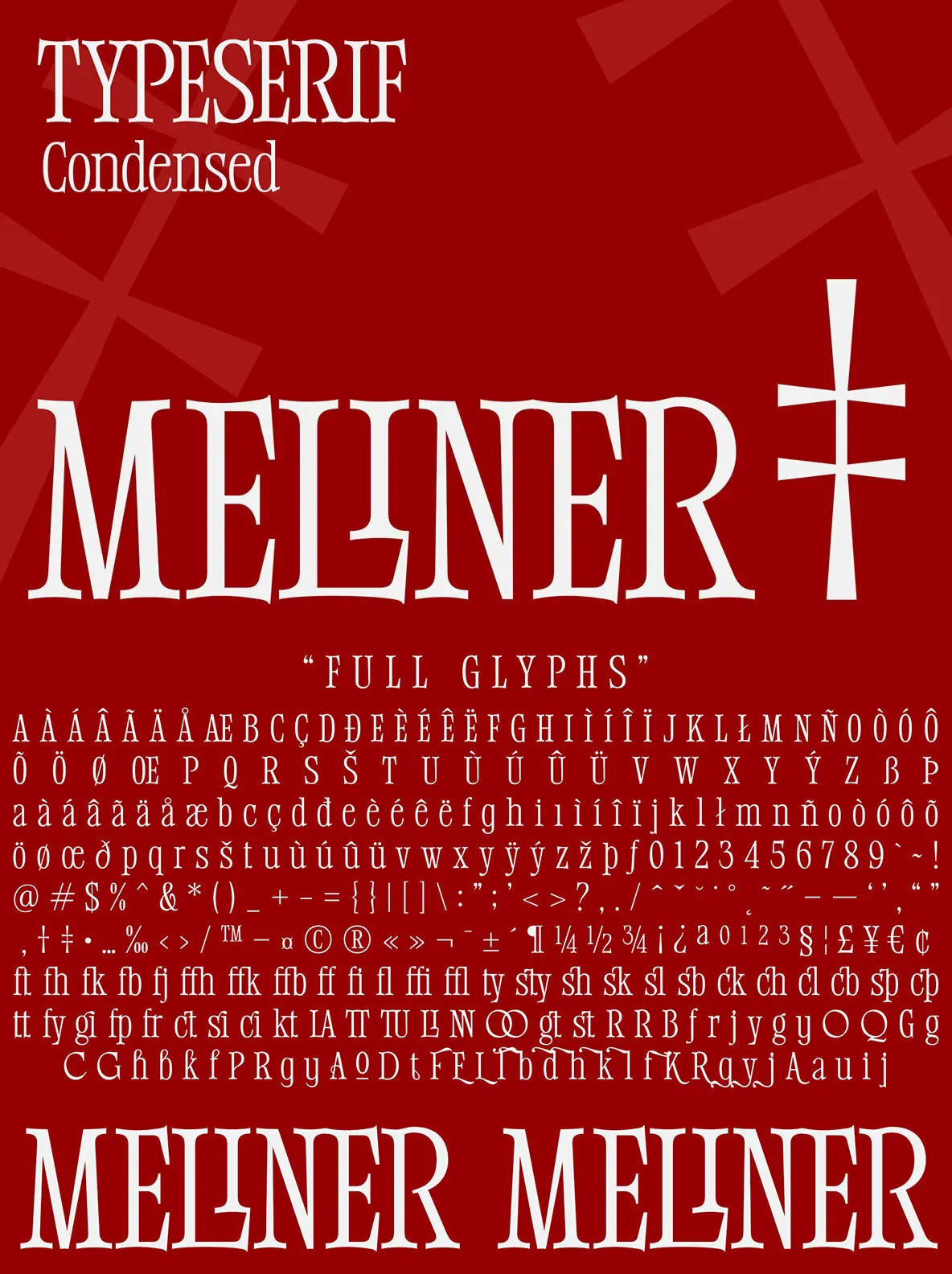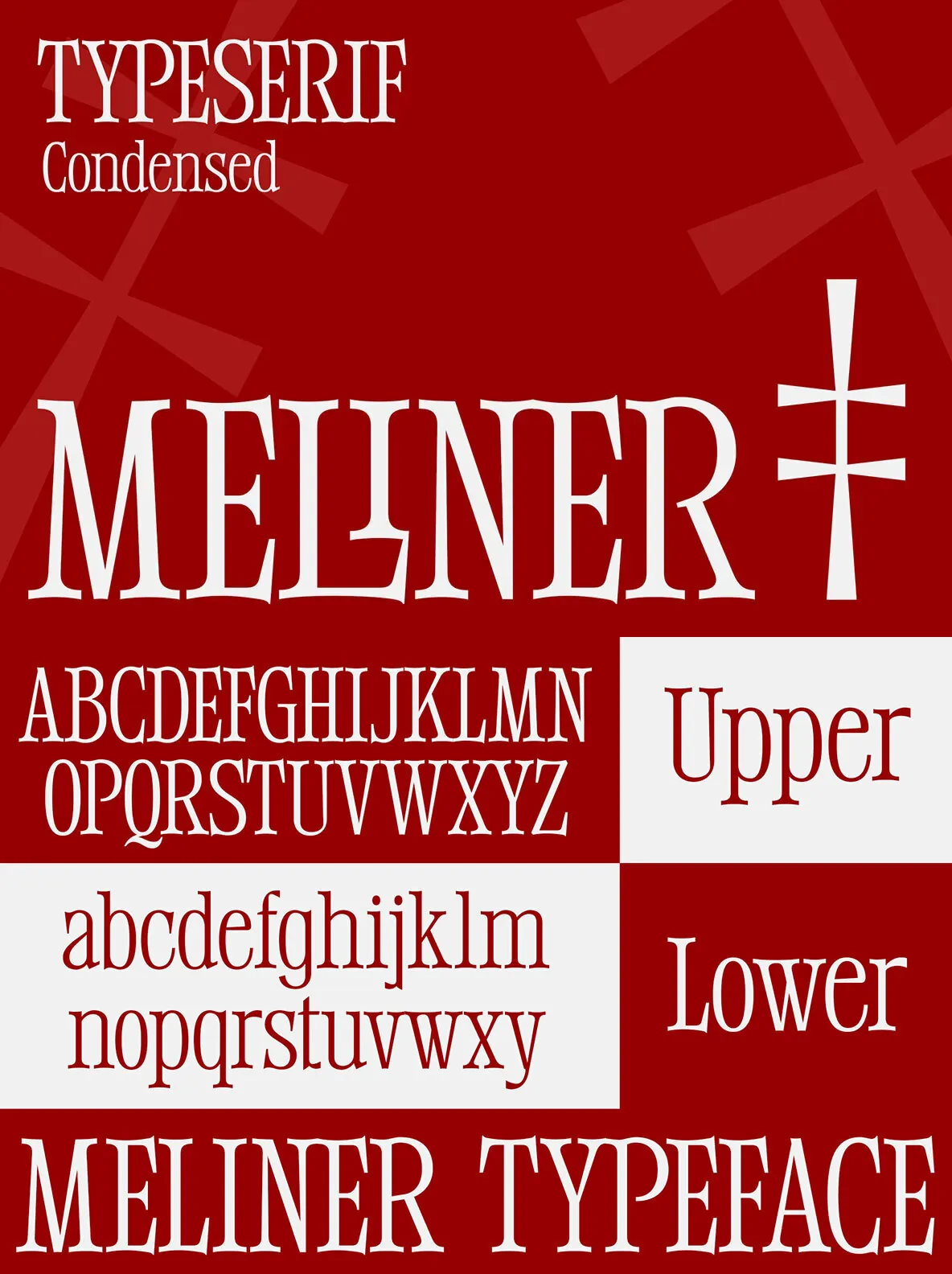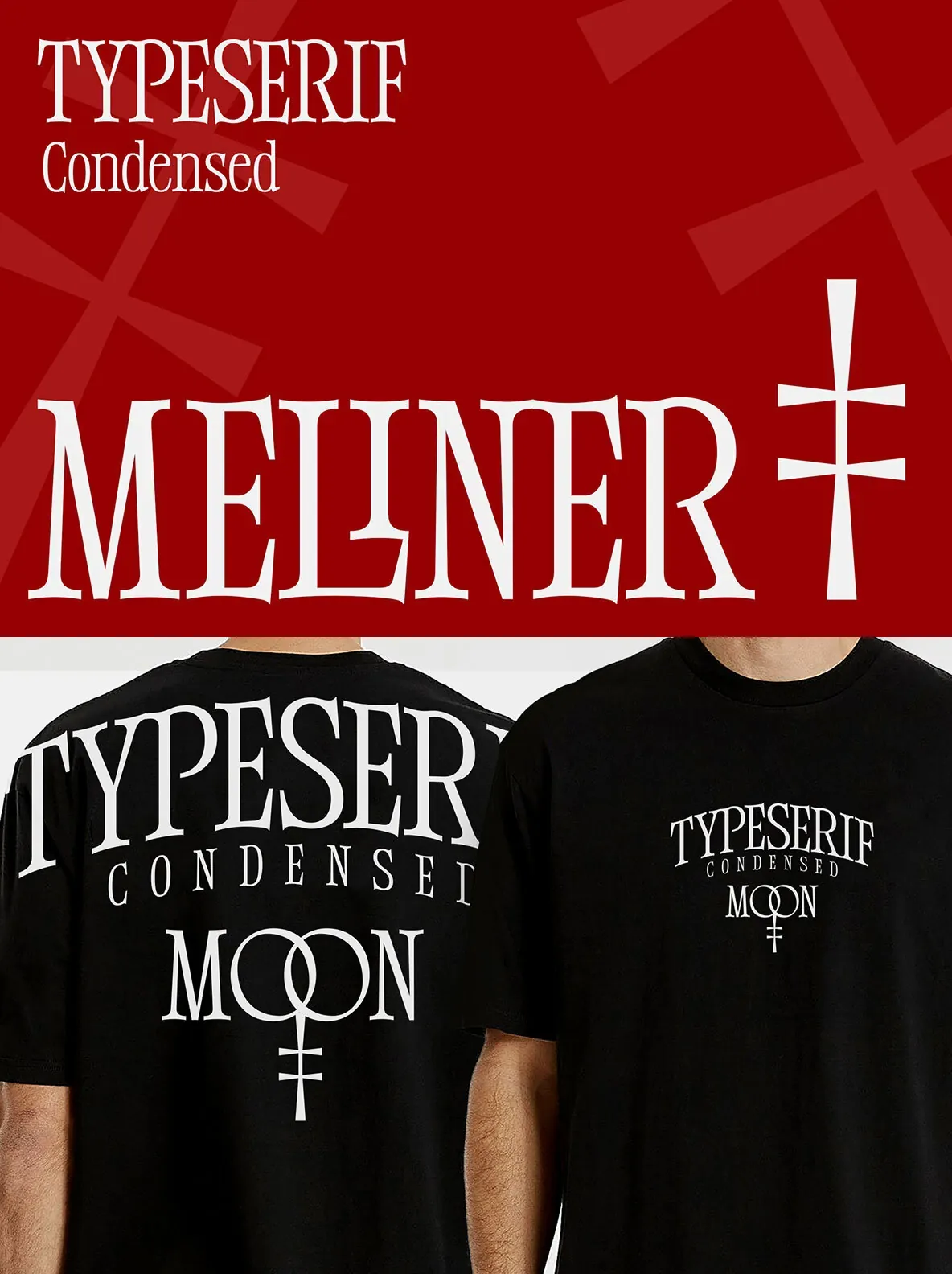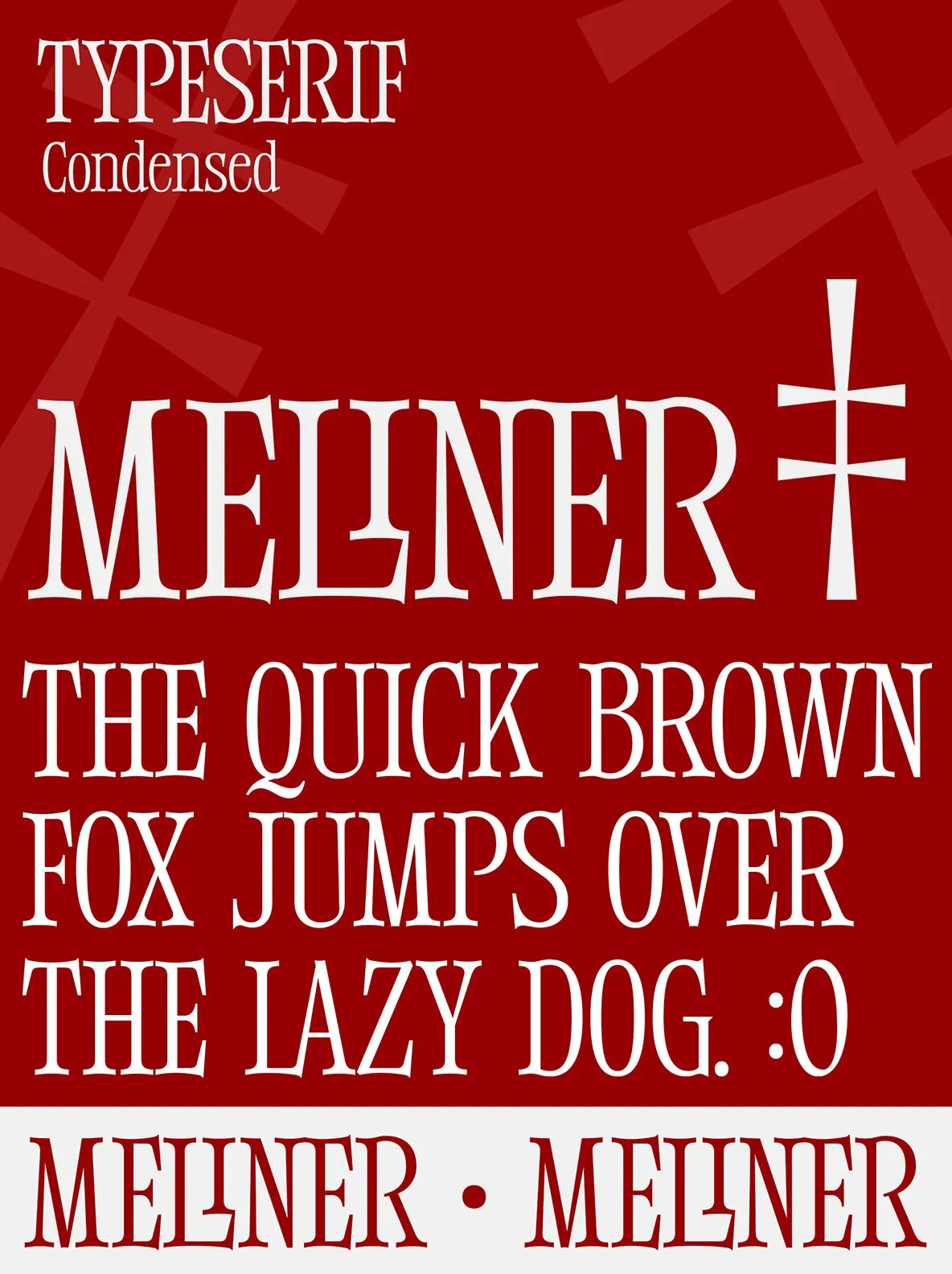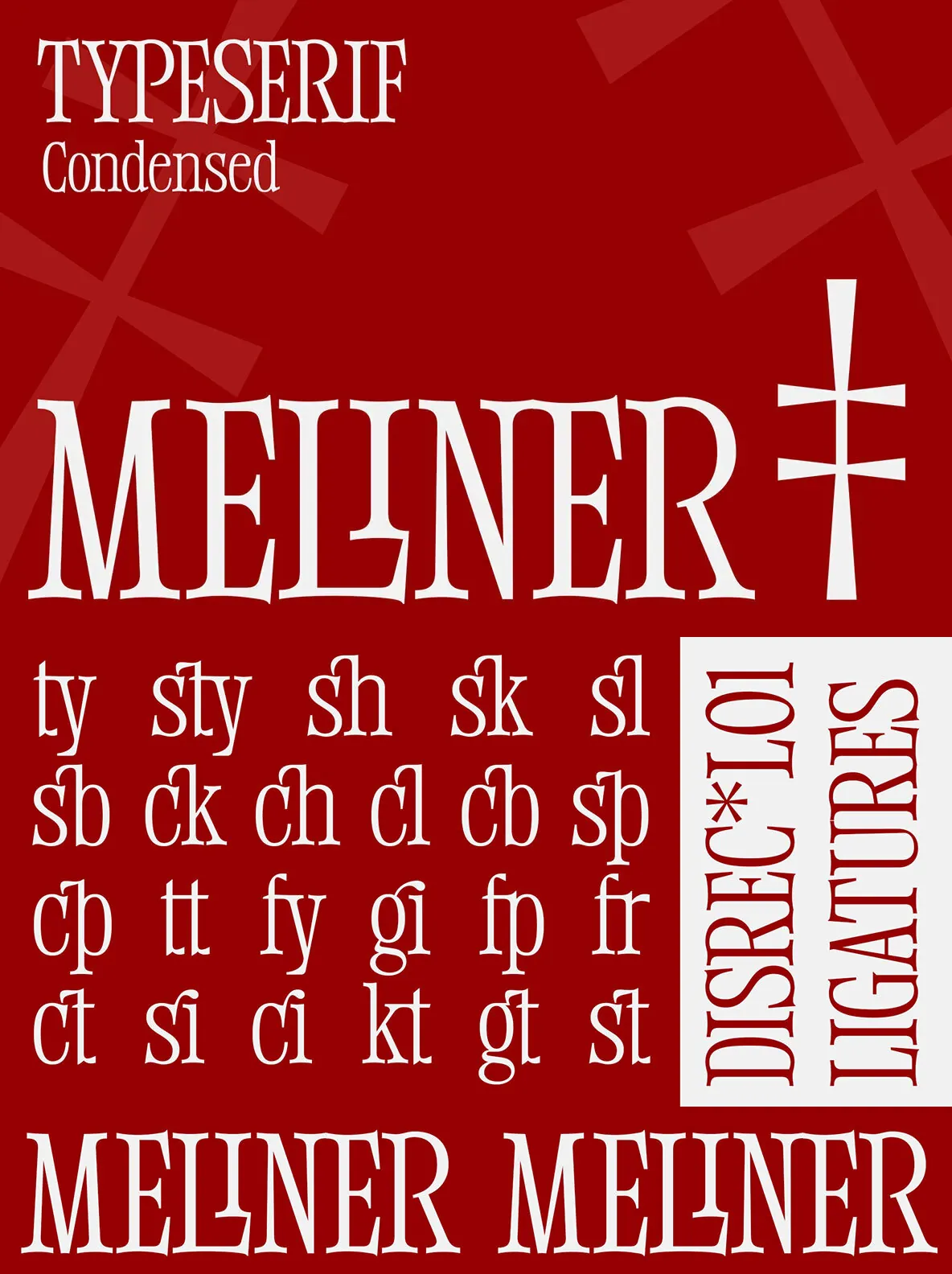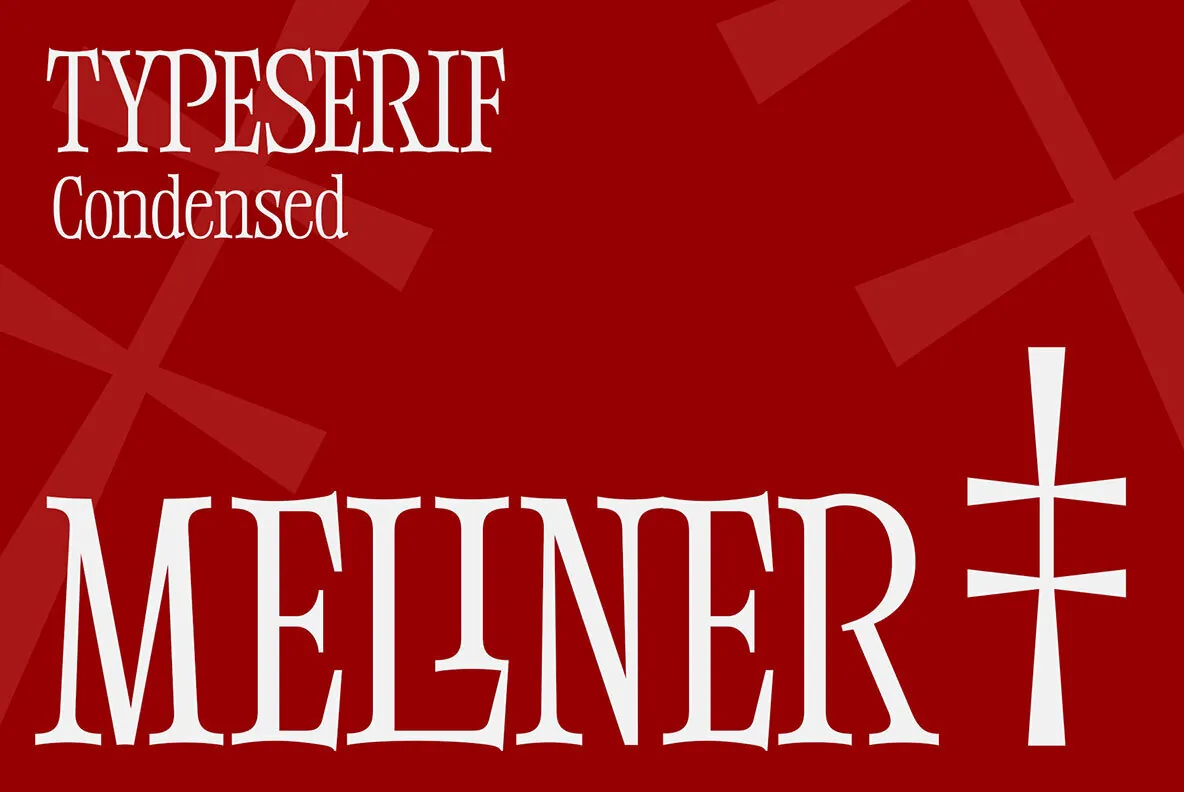
Meliner: Elegant Display Serif for Modern Designs
Meliner is a compact display serif font known for its distinctive and elegant serif shape. It’s perfect for creating sleek, impressive designs with a modern, stylish personality.
This font features 40 ligatures and 46 alternative glyphs.
All Caps Font
with distinct uppercase and lowercase styles
Includes
Numbers & Symbols
Offers
Alternates and Ligatures
Meliner is the result of dedication and creativity, designed to be both easy and fun to use.